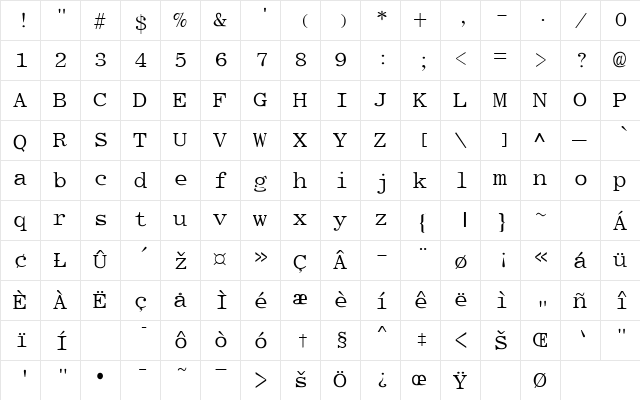
Elite Regular
Design Context for Elite Typeface
Elite is a composed and adaptable typeface that performs quietly and consistently across a wide range of design contexts.